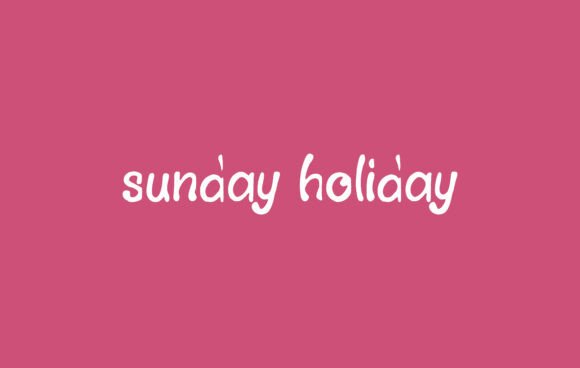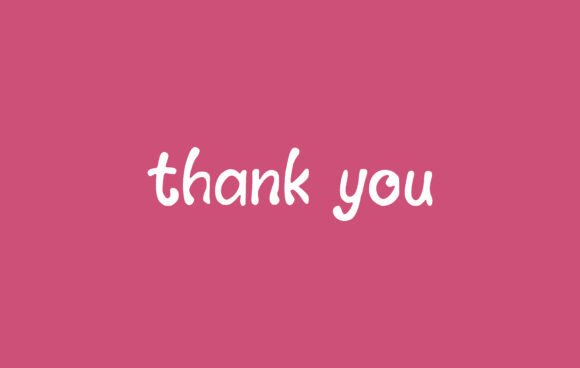
Introduction to Lina Font
Have you ever been working on a creative project, and the perfect font just seems to be missing? You’ve got a vision, but it’s not quite translating onto the page. For designers, finding the right font can be the difference between a project that’s just okay, and one that truly shines. That’s where Lina Font comes in – a beautiful, authentic handwritten font that adds a touch of romance to any design.
Whether you’re working on a magazine headline, a social media campaign, or a wedding invitation, Lina Font is the perfect design resource to elevate your creative ideas. Its high-quality, legible design makes it perfect for both title and body text, and its free download makes it an accessible addition to any design arsenal. With a transparent background and a range of styles to choose from, Lina Font is the ultimate tool for designers looking to add a little extra magic to their work.
Lina Font
- High-quality, free download font ideal for creative projects, offering a unique and elegant design.
- Features a transparent background, making it a versatile design resource for various applications.
- Comes in a single weight, perfect for adding a touch of sophistication to your designs without overwhelming the content.
- Designed with a high resolution of 300 DPI, ensuring crisp and clear text even at larger font sizes.
- Perfect for use in logos, typography-based designs, and other creative projects where a clean and modern font is required.
Honest Review: Lina Font
I recently came across Lina Font, a free design resource that caught my attention. As a designer, I appreciate high-quality fonts that can elevate my creative projects. Lina Font delivers on this front, offering a sleek and modern design that’s perfect for a variety of applications.
Here are some things that work well:
- ✨ High-quality design that’s suitable for both digital and print projects
- ✨ Transparent background, making it easy to use in any design environment
- ✨ Great for creating a modern and sleek aesthetic
- ⚠️ Limited character set, which may not be suitable for longer texts or complex typography
- ⚠️ May not be as versatile as some other fonts in terms of style and flexibility
Overall, I’m impressed with Lina Font and would definitely recommend it for designers looking for a high-quality, modern font. While it may have some limitations, its unique design and transparent background make it a valuable addition to any design resource library.
Lina Font is suitable for various design projects, including logos, business cards, and social media graphics. Its transparent background feature makes it ideal for creating eye-catching designs with a seamless look.
Can I use Lina Font with a transparent background, and what’s the resolution of the font?
Yes, Lina Font is designed to work well with transparent backgrounds. The font has a high-resolution design, with a resolution of 300 DPI, which makes it suitable for use in high-quality designs, such as logos, icons, and graphics. The transparent background feature allows you to use